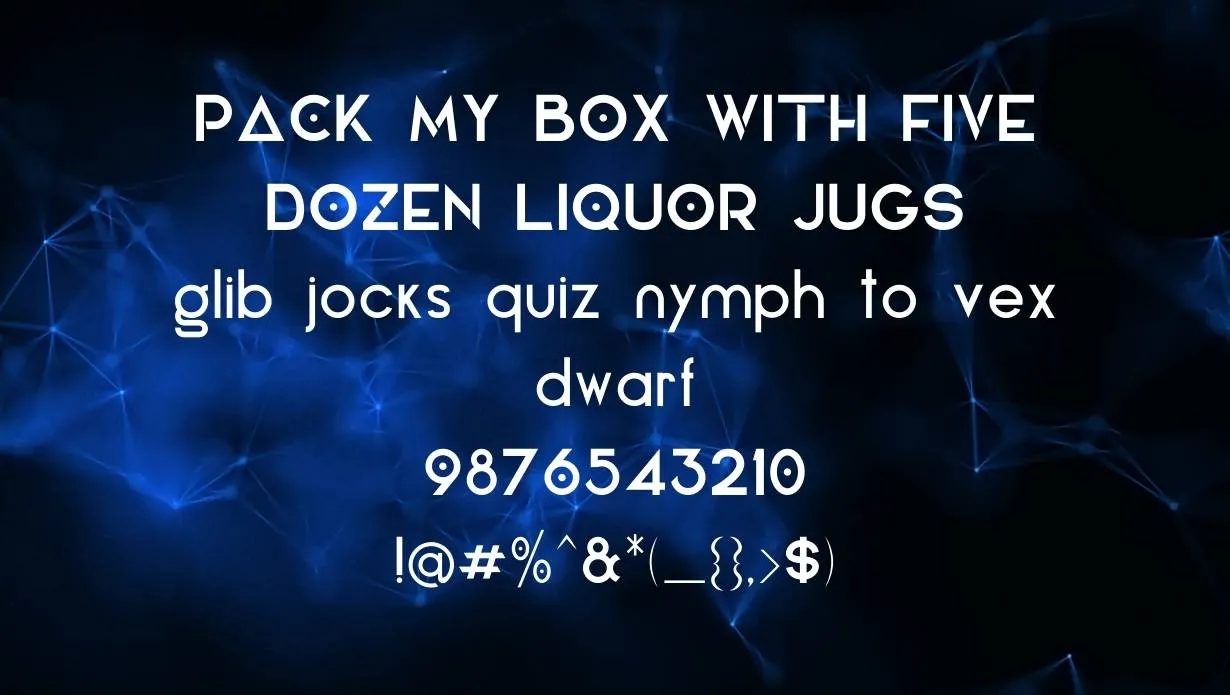
Elianto Font is a typeface created by A.M. Cassandre in 1925. It is a sans serif font with a geometric design. This font was created for the French advertising agency Alliance Graphique.
The Elianto typeface is used in both display and text settings. It is a versatile font that can be used for both body copy and headlines. This font is available in both regular and bold weights.
Elianto is a unique typeface that has a geometric design. The shapes of the letters are based on simple geometric forms. The Elianto typeface is perfect for creating modern, stylish designs.
If you are looking for a unique sans serif font, then this font is perfect for you. The geometric shapes of the letters make it perfect for creating modern designs. If you want to add a touch of style to your designs, then the Elianto font is perfect for you.
Who Used Elianto Font?
We can use Elianto Font for Modern designs, Stylish designs, Unique designs, and Geometric designs. This font is perfect for creating modern, stylish designs. If you want to add a touch of style to your designs, then the Elianto font is perfect for you.
this font has great legibility even at small sizes and can be used for both display and text settings. Elianto is available in both regular and bold weights. This font is perfect for creating modern, stylish designs. If you want to add a touch of style to your designs, then this font is perfect for you.
This typeface has very even proportions. It is a sans-serif with a humanist touch, which gives it a very friendly look. You can use Elianto for both display and text. There is an online font generator tool where you can easily generate this font. You can also try the stencil font in your specific designs that have amazing powerful characters and has pair nature.
Elianto Font Family Appearance
Name | Elianto Font |
Designer | A.M. Cassandre |
Style | sans-serif |
Family of Elianto typeface
- Elianto Bold
- Elianto Italic
- Elianto Regular
Who designed the Elianto Font?
A.M. Cassandre designed the Elianto Font in 1925. The Elianto typeface was created for the French advertising agency Alliance Graphique.